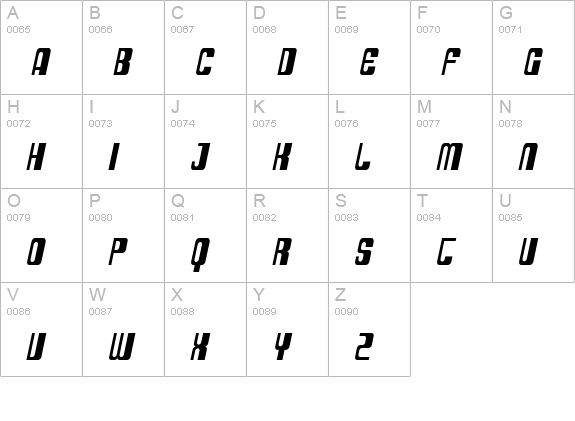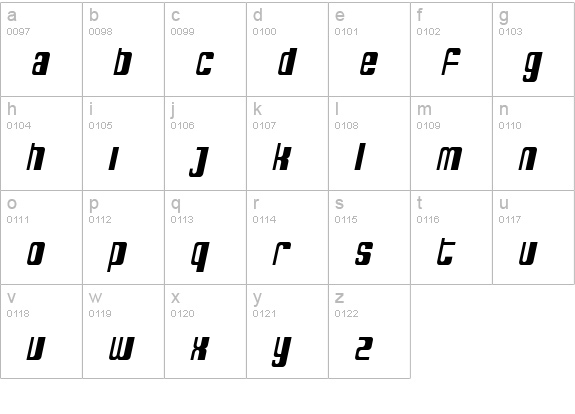
SF DecoTechno Condensed Oblique Font Details
SF DecoTechno Condensed Oblique is a distinctive, condensed-width, italic variant in the SF typeface family \xE2\x80\x94 well suited to design and typography projects.
SF DecoTechno Condensed Oblique is a sleek and modern font that seamlessly combines the elegance of Art Deco with the futuristic aesthetics of Techno. Its condensed and oblique design adds a touch of sophistication and dynamism to any project. With its clean lines and geometric shapes, SF DecoTechno Condensed Oblique exudes a sense of precision and efficiency. It is perfect for conveying a sense of contemporary style and sophistication in a wide range of design applications, including logos, headlines, posters, and branding materials. The font's bold and slanted letters have a strong visual impact, making it ideal for catching the viewer's attention and creating a lasting impression. Whether used in print or digital media, SF DecoTechno Condensed Oblique adds a touch of elegance and professionalism to any design. And the best part is, SF DecoTechno Condensed Oblique is free! It is freely available to download at FontsMarket.com, allowing designers and creatives to access this stunning font without any cost. So, don't miss out on this fantastic opportunity to elevate your design projects with this remarkable typeface. Download SF DecoTechno Condensed Oblique today from FontsMarket.com and unleash its endless creative possibilities. Experience the perfect blend of Art Deco and Techno styles, all within a condensed and oblique design that is sure to captivate and inspire.